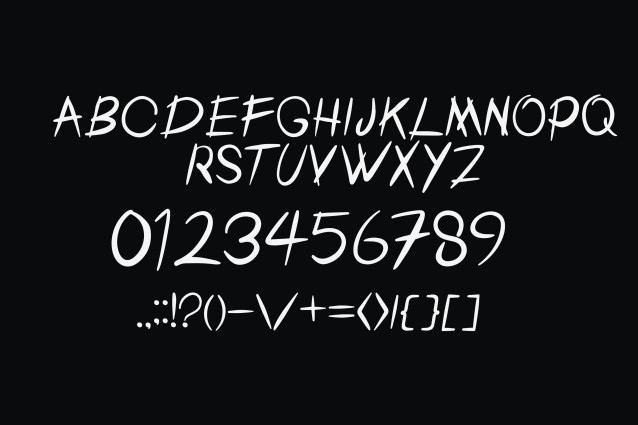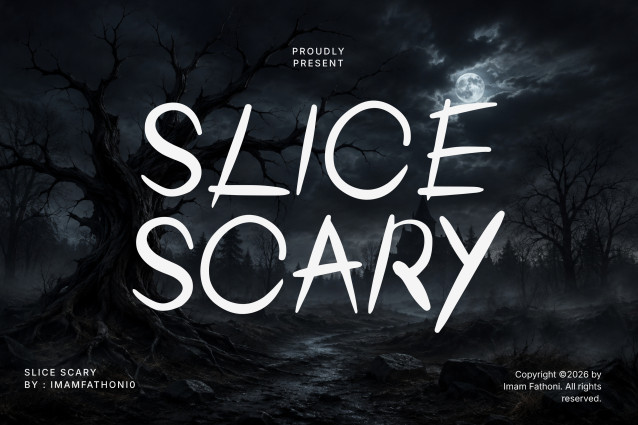
Slice Scary is a jagged, aggressive display font with slashed, uneven edges that evoke violence and dread. Its raw, hardcore character delivers an intense, unsettling presence, built for designs that need to feel dangerous and menacing at a glance.
Halloween decor and invitations, haunted house signage, horror movie posters, hardcore and metal band merch, gothic apparel and streetwear, tattoo studio logos, game and book covers, dark-themed party decorations, seasonal merchandise, edgy social media content.